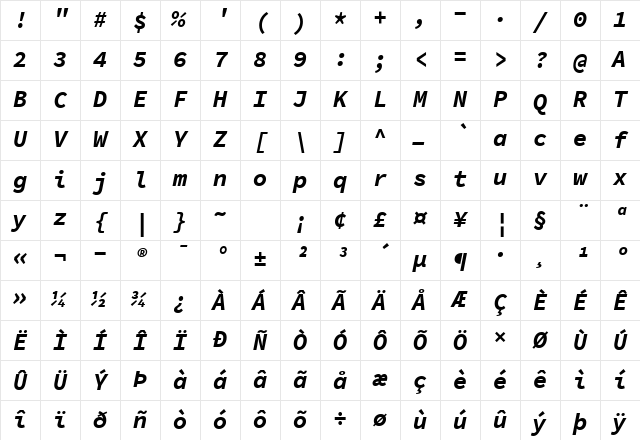
Complete SauceCodePro Nerd Font Mono Bold Italic glyph index. Displaying only characters natively supported by SauceCodePro Nerd Font Mono Bold Italic font.
SauceCodePro Nerd Font Mono uses fixed-width spacing throughout, giving it the structured, systematic character associated with coding environments and technical documentation. The slanted form adds forward momentum and visual energy. Its bold stroke weight gives it real presence on the page.